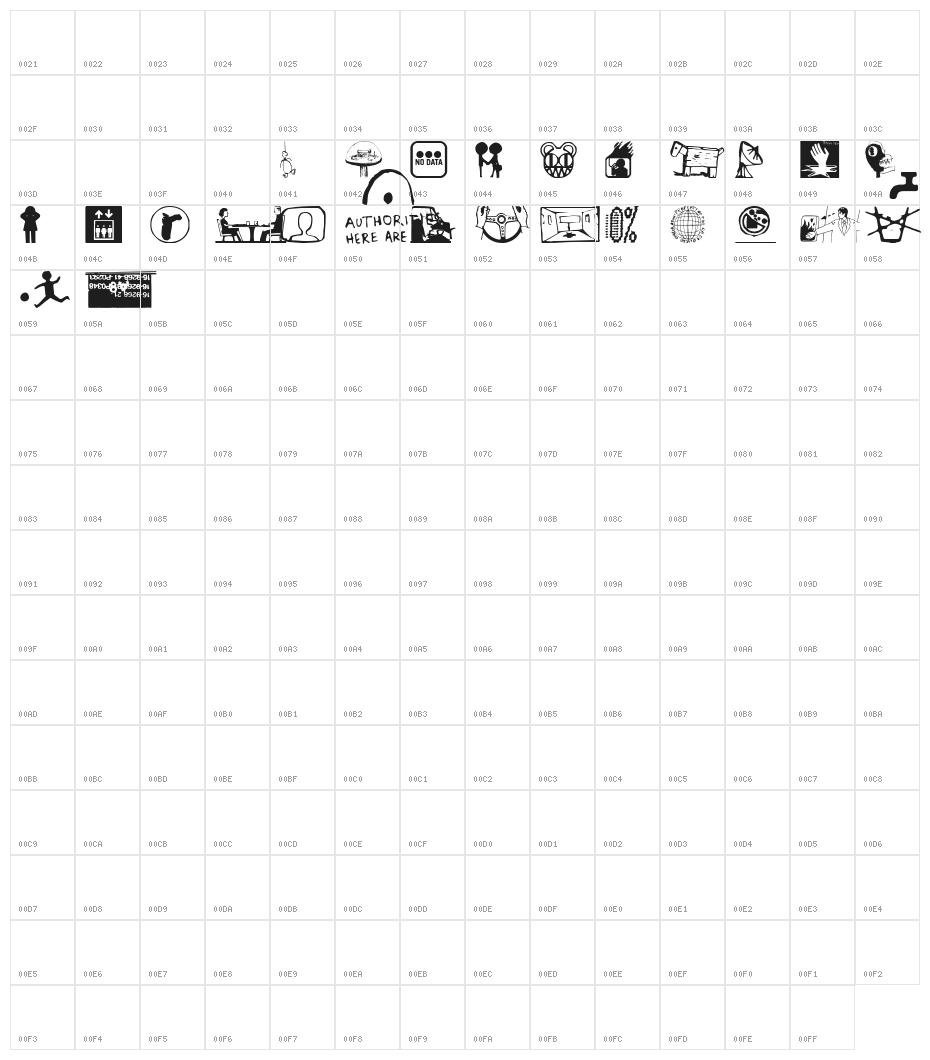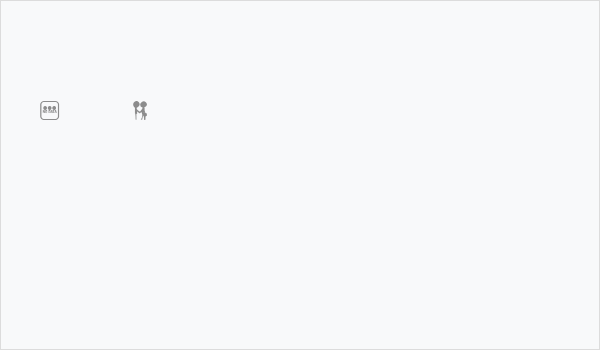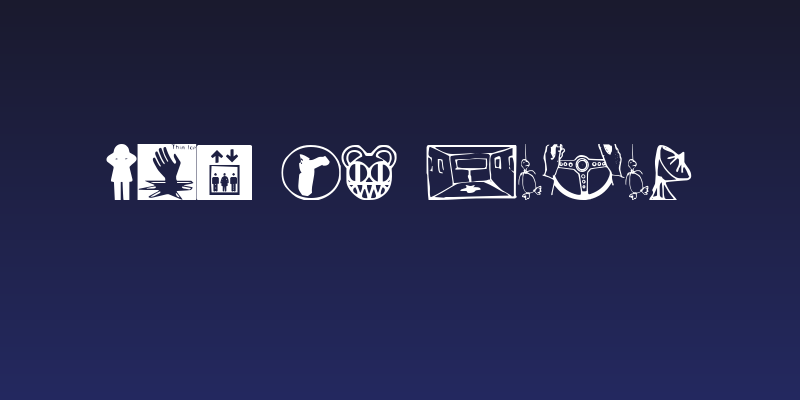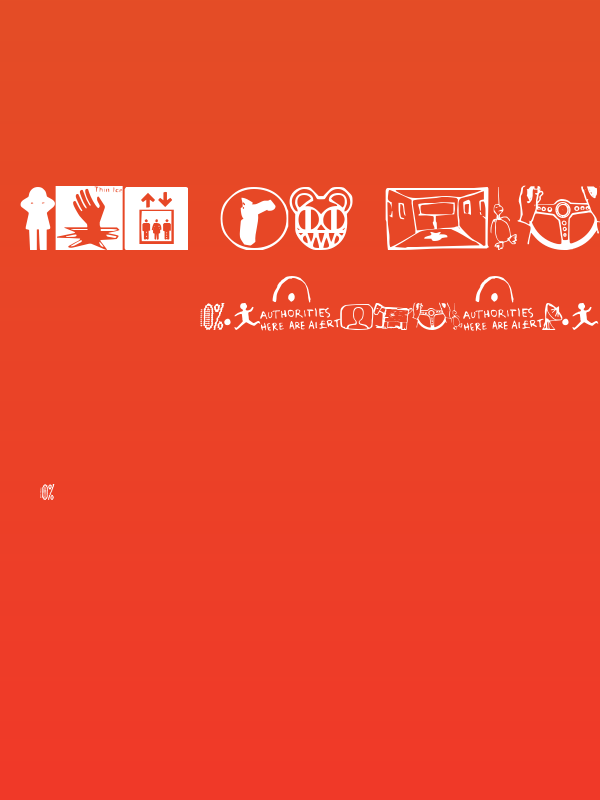
kil_me_sarah Font
kil_me_sarah Description
This is a collection of unique and abstract symbols and illustrations rather than a traditional font. Each character is represented by a distinct graphic, ranging from abstract shapes to recognizable icons. The style is eclectic, with a mix of bold lines and intricate details. The characters are more pictorial, offering a playful and artistic approach to visual communication. This set is ideal for creative projects that require a distinctive and unconventional aesthetic.
| Overall Style | Artistic, Abstract |
| Use Case | Logos, Artistic designs, Posters |
| Proposed Projects | Ideal for graphic design projects, artistic posters, album covers, and any creative work that benefits from unique visual elements. |